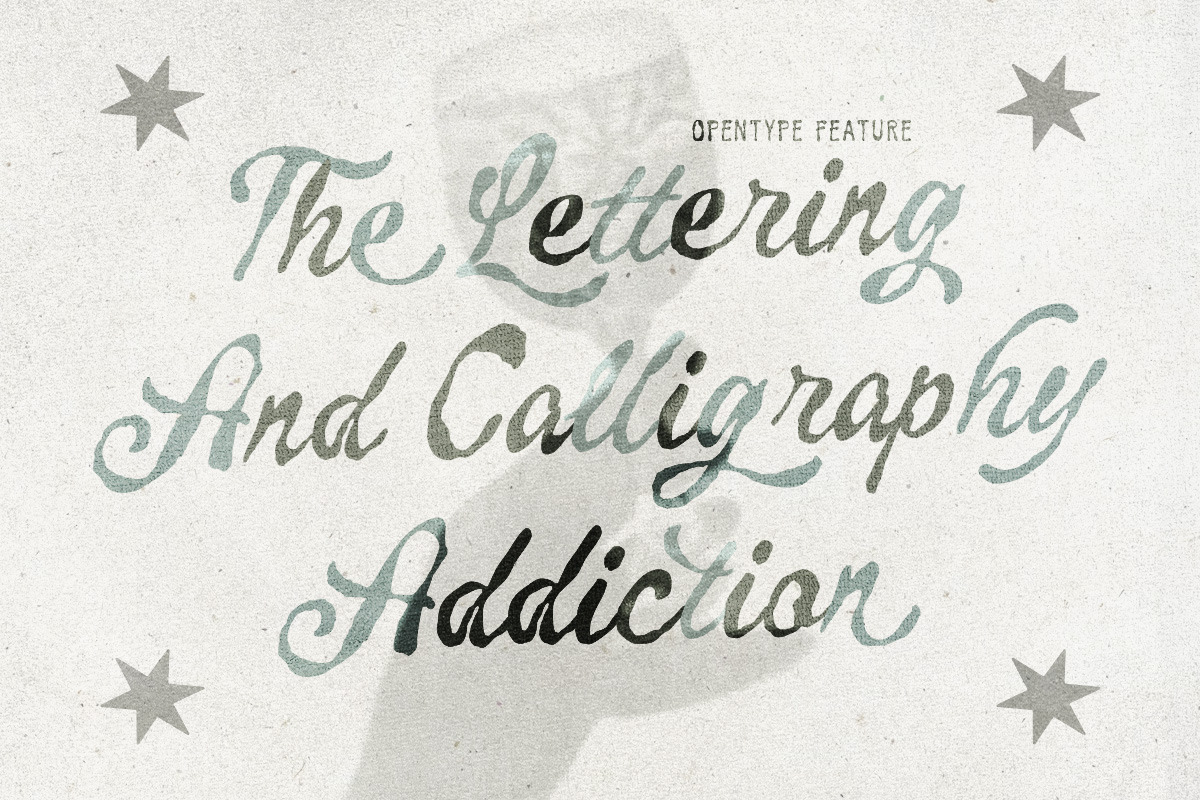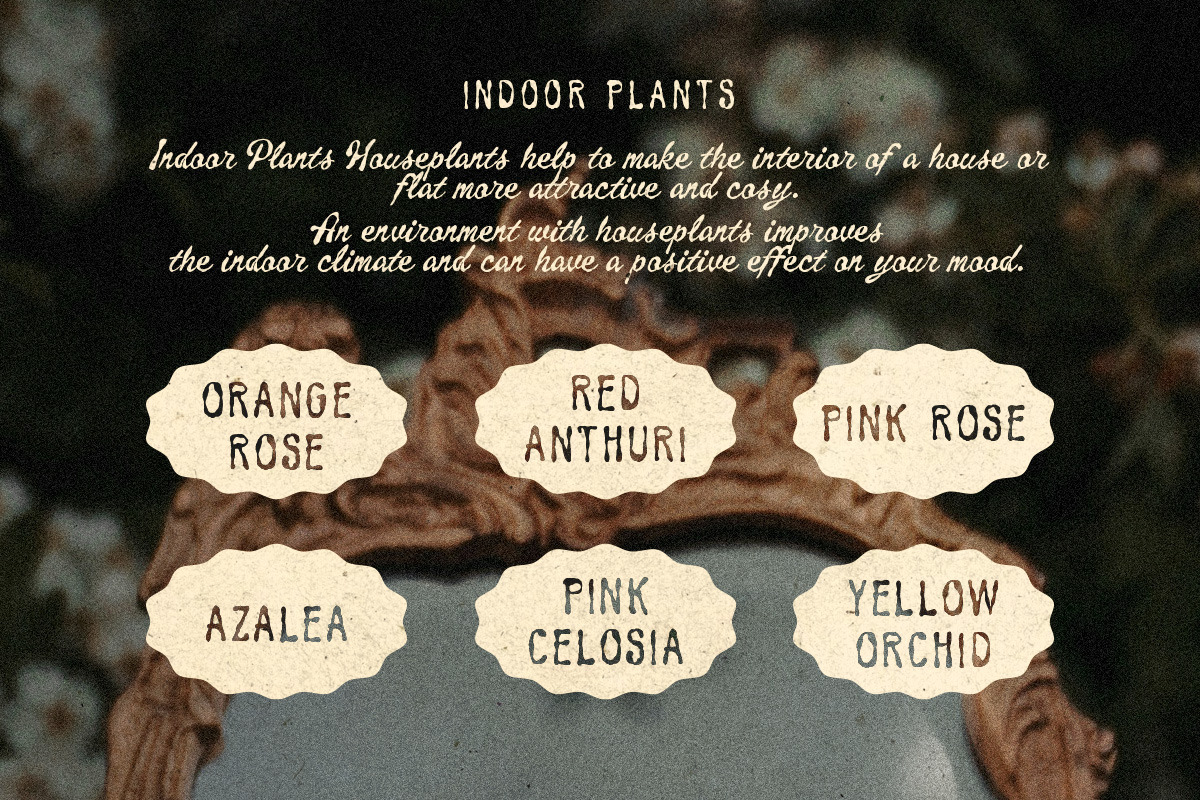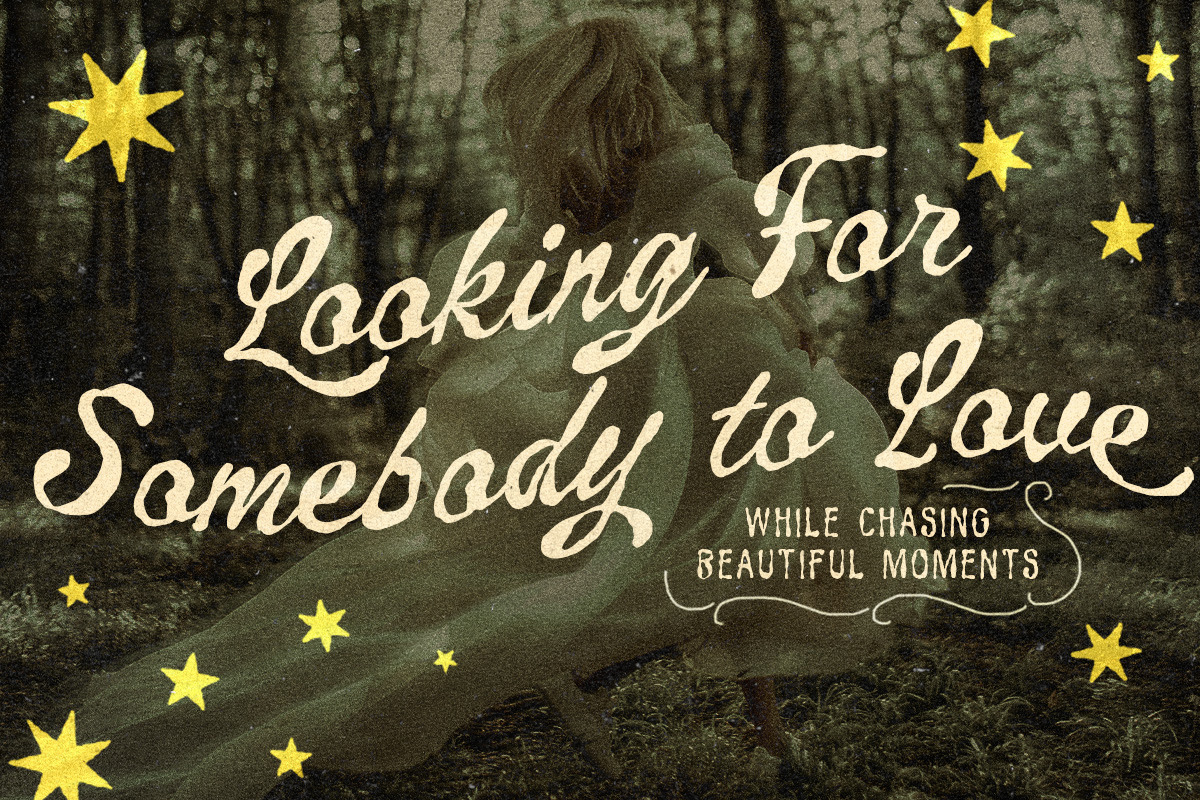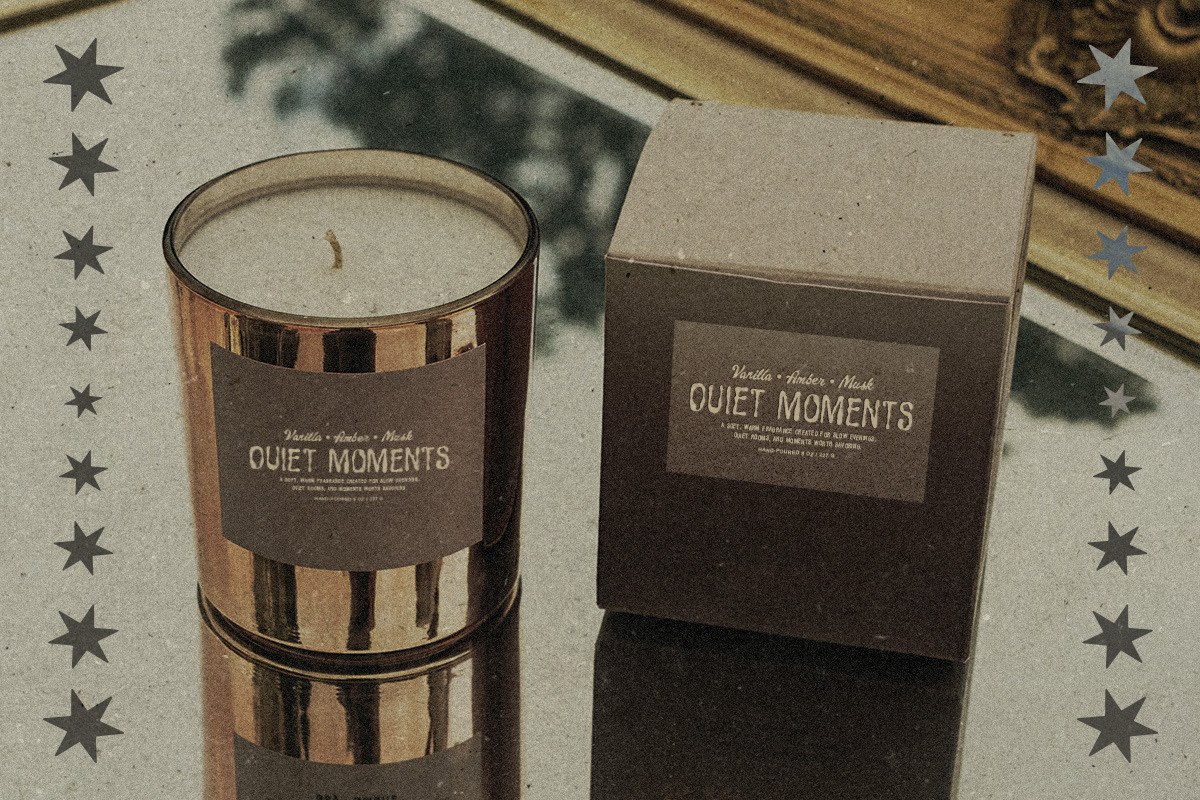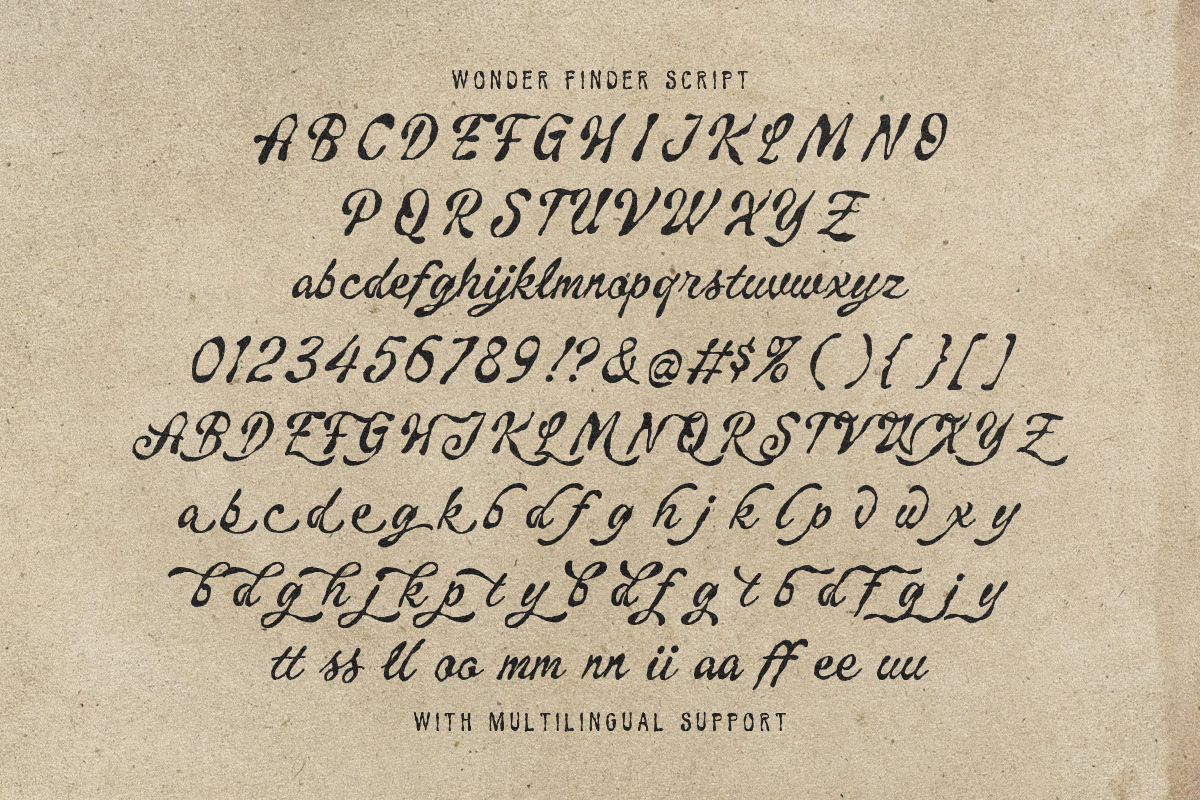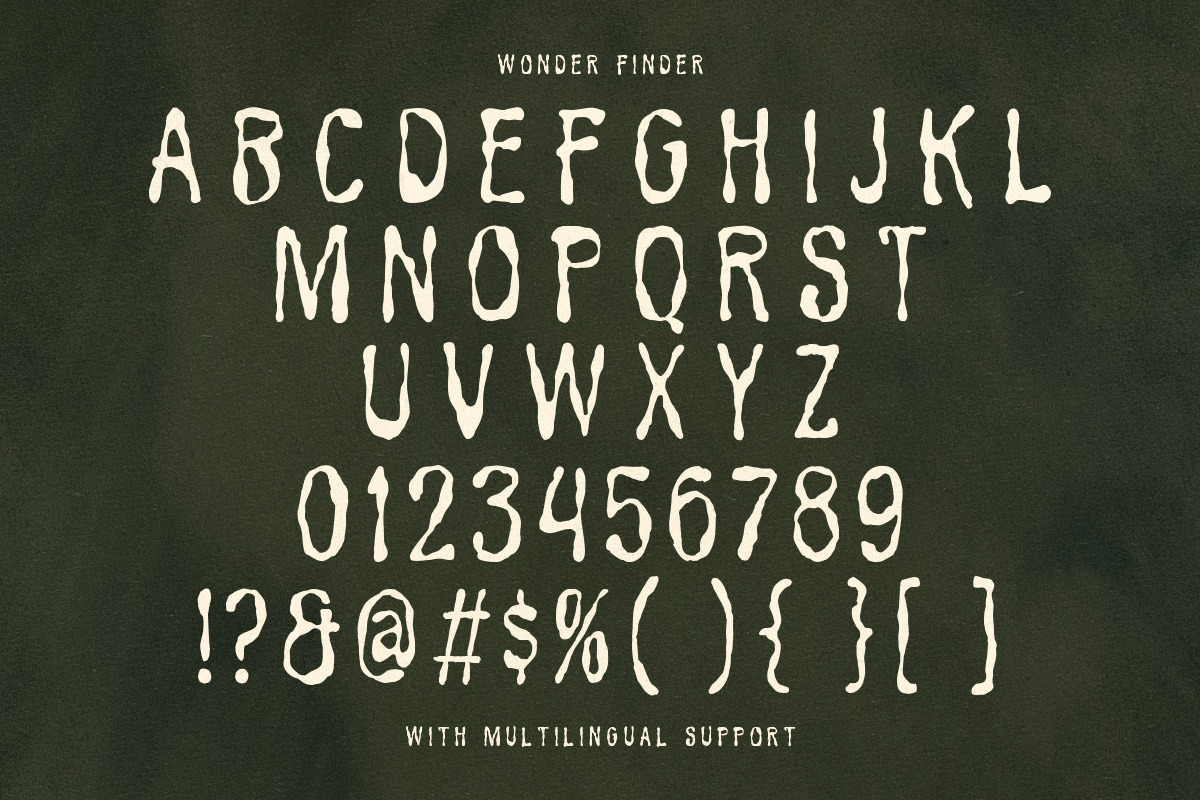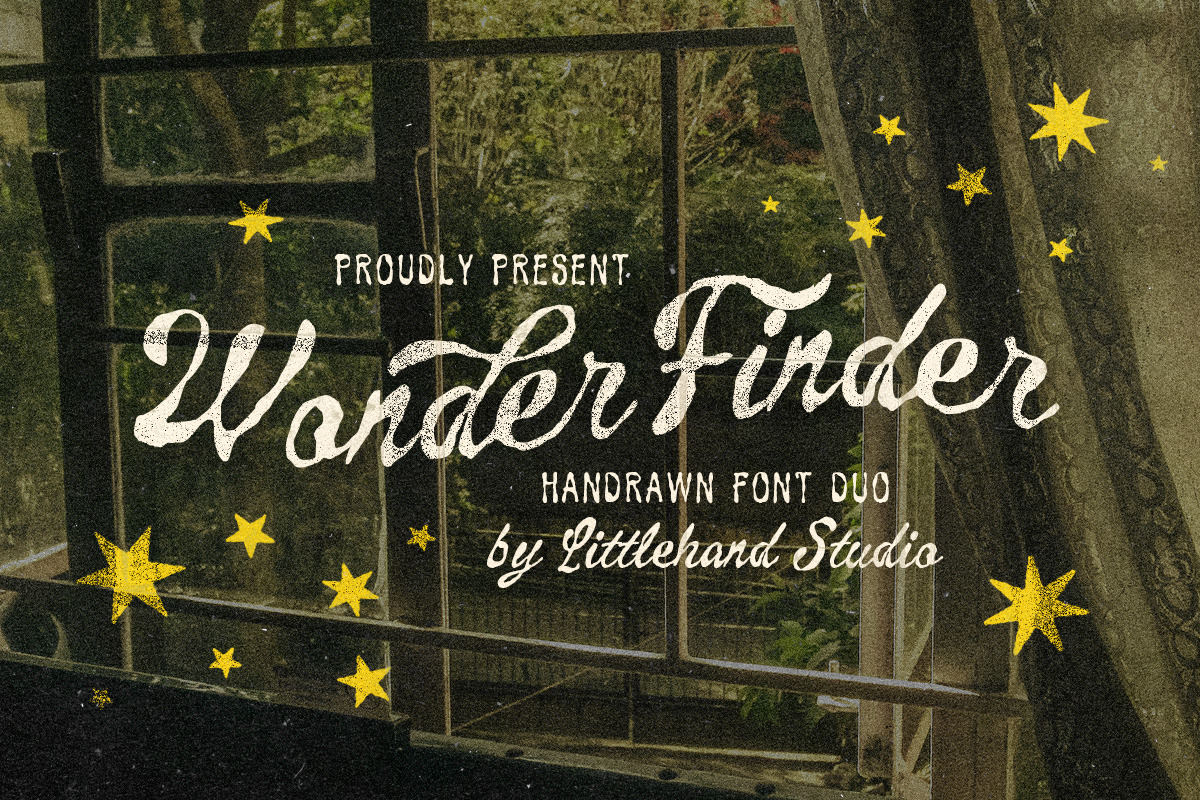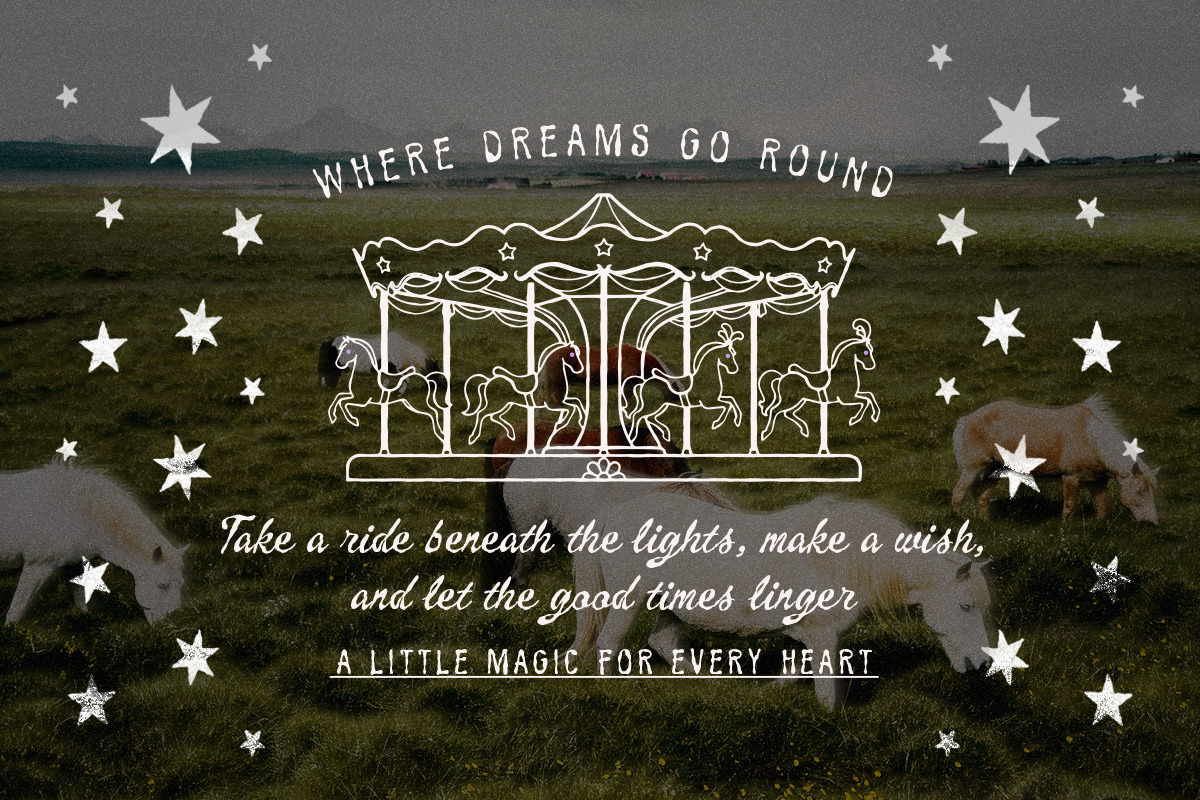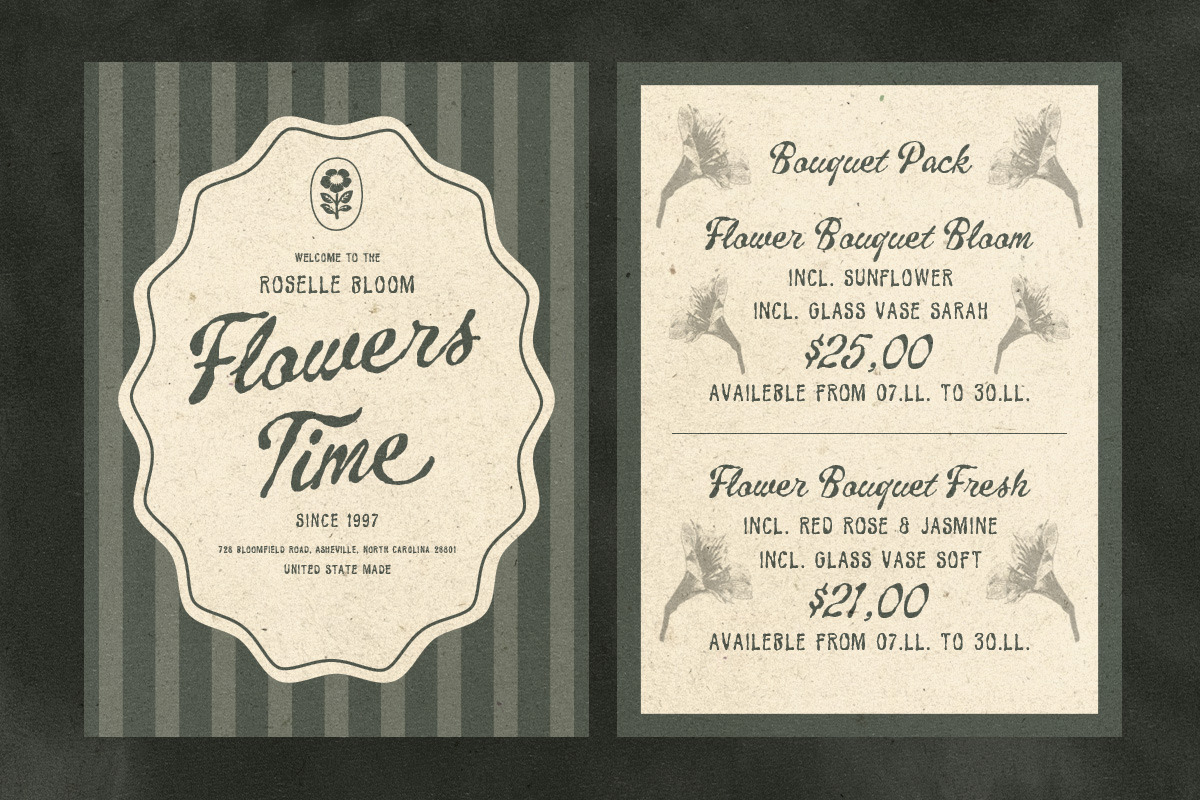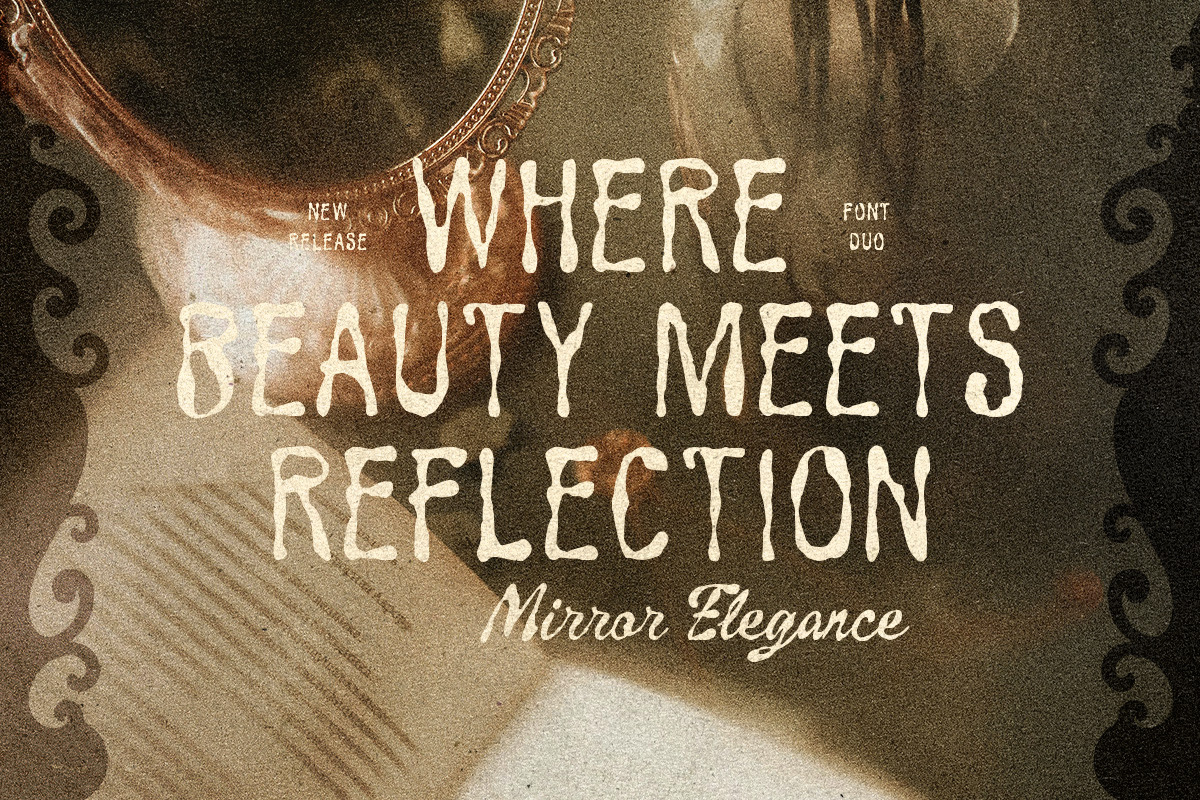
Wonder Finder Whimsical Font Duo
Wonder Finder carries a whimsical, nostalgic spirit with its expressive hand-drawn script and charmingly imperfect companion lettering. The flowing script has a loose brush-like character, while the secondary style brings a playful handmade feel that gives the whole family a warm, storybook personality. With its organic strokes, rough edges, and dreamy character, Wonder Finder feels right at home in magical adventures, children’s stories, vintage-inspired posters, outdoor themes, heartfelt quotes, greeting cards, album artwork, and imaginative editorial designs.
Uppercase & lowercase
Numbers and punctuation
Alternates & Ligatures